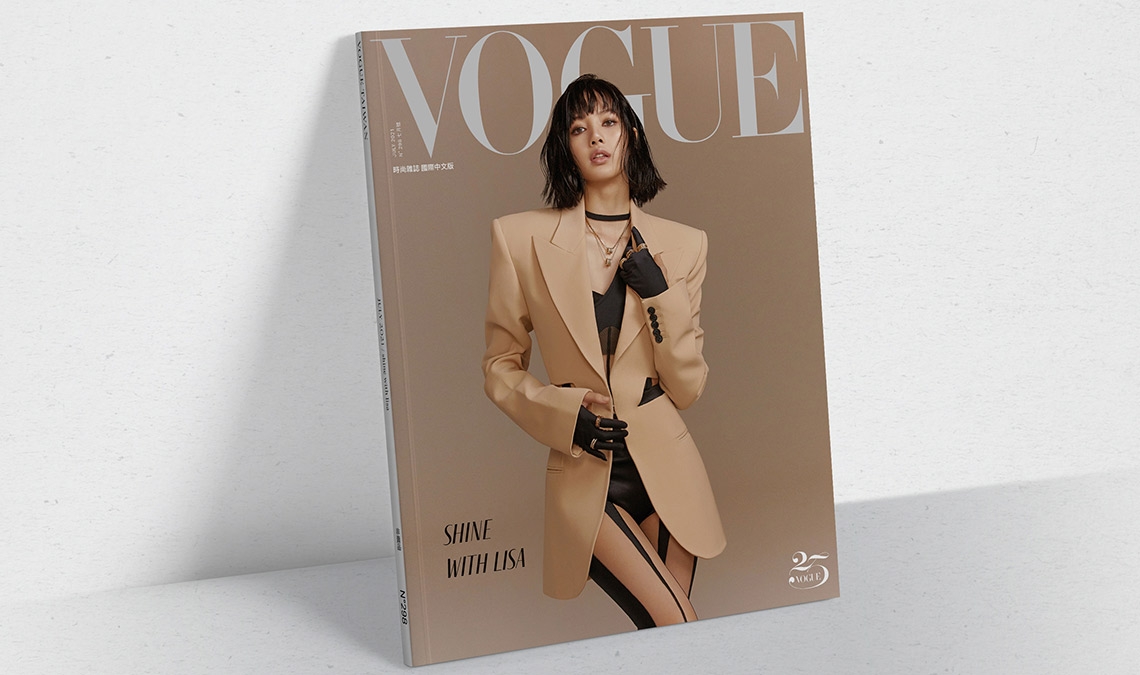
Fino and Fino Sans in use in Vogue Taiwan
Fino and Fino Sans, the dramatic Didone by Ermin Međedović, have been used on the cover and internal pages of Vogue Taiwan.
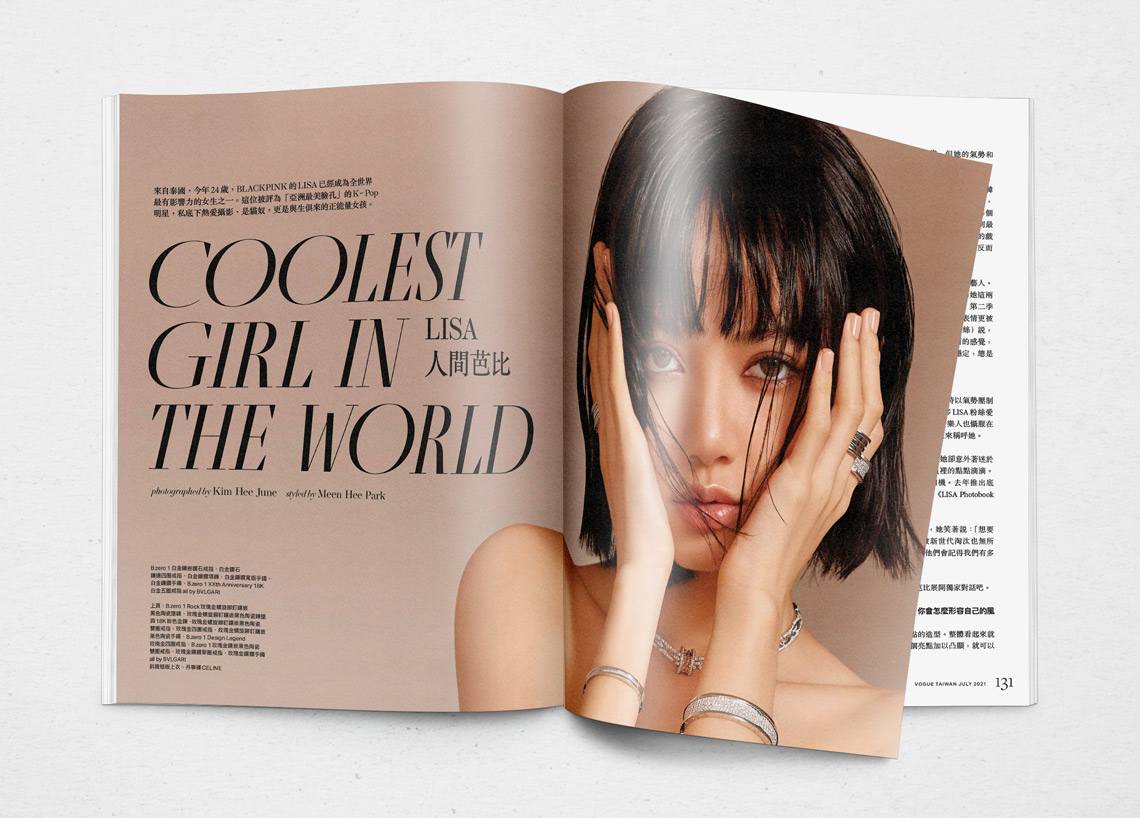
Fino Sans and Fino, the dramatic Didone designed by Ermin Međedović was used by Art & Design Director Jeter Chou in the cover story of the Taiwanese edition of Vogue magazine. Large headlines appear in Fino and smaller calls in Fino Sans, a family naturally born for fashion magazines.
Tall, stately, and refined, with a showy contrast between thick and thin, a certain kind of titling Didone has become synonymous with fashion. Ermin Međedović’s Fino font family amplifies the most theatrical aspects of this genre while bringing an uncommon flexibility of style and variation to any type palette — particularly those required for editorial design.
This stage is set in three acts: Fino, Fino Sans, and Fino Stencil. Each of these offers six weights and italics, and each actor is comfortable speaking any Latin-based language, from standard Hollywood English to Parisian runways and the many accents of Eastern Europe. Finally, every style comes in two optical sizes, with Title having the finest hairlines for the biggest parts.